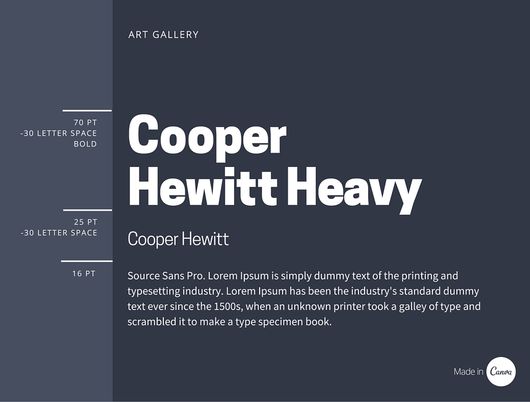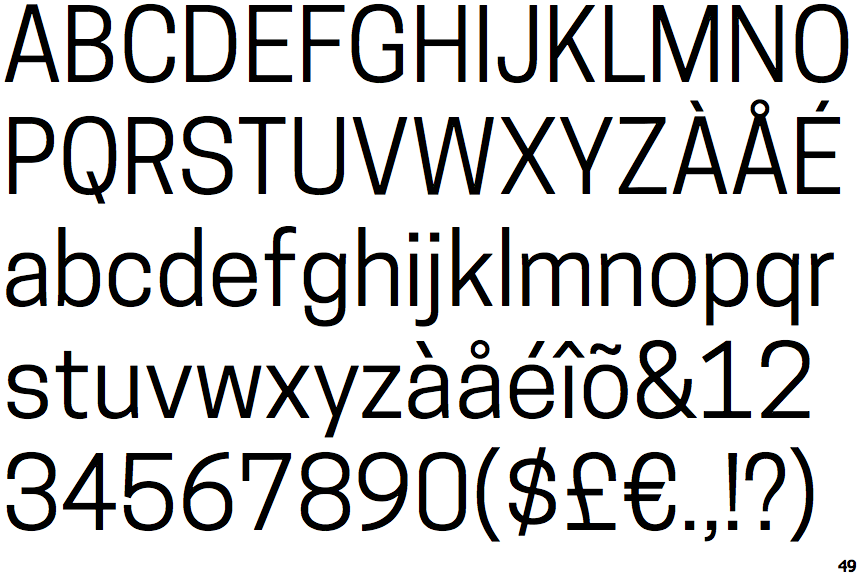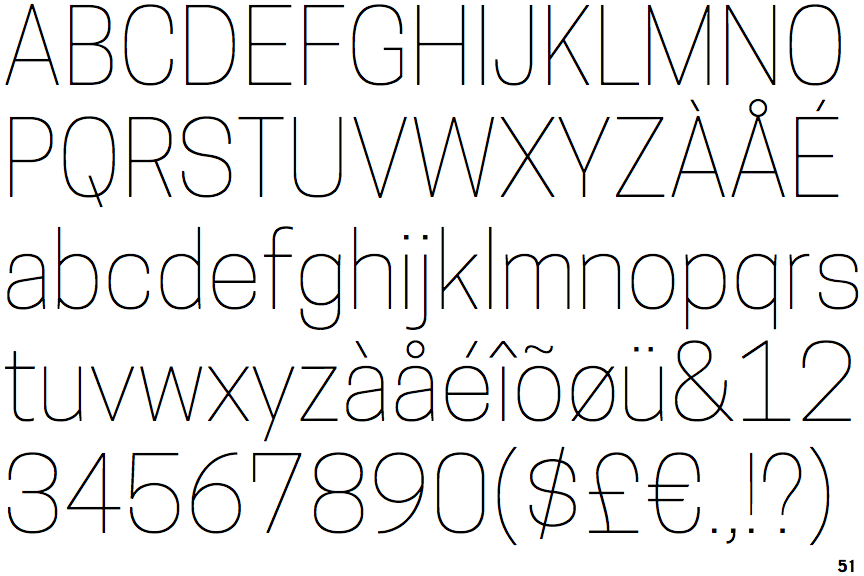
Font is available in all formats and is applicable for website, adobe photoshop and any other editor. The design was based off the condensed cut of jenkins’ galaxie polaris typeface, but was completely redrawn from scratch.
The cooper hewitt font should be used in uppercase as a contrasting subheading or chapter marker.
Cooper hewitt font adobe. Download font cooper hewitt by village type and design llc. All fonts here are named cooper hewitt, and are differentiated only by font weight / variant property. You're free to use it with your adobe fonts account just as you would any other font in the adobe fonts library.
Contact@adobe.com 2313 views, 234 downloads. The new typeface, cooper hewitt, is a contemporary sans serif, with characters composed of. He named this typeface after his name.
“developing this typeface specifically for cooper hewitt has been enormously gratifying,” said jenkins. The steps are outlined below: This font style is designed by cooper hewitt who has also designed many of the font styles that are really popular and this font style is also one of them.
Cooper std black font viewed 14368 times and downloaded 7555 times. Chank diesel has been creating original typefaces since 1995. Initially commissioned by pentagram to evolve his polaris condensed typeface, chester jenkins created a new digital form to support the newly transformed museum.
Initially commissioned by pentagram to evolve his polaris condensed typeface, chester jenkins created a new digital form to support the newly transformed museum. The cooper hewitt font has been downloaded 42,079 times. Adobe hide show add to favorite download.
If you recognize the font from the samples posted here don't be shy and help a fellow designer. On my old pc, i could see all the fonts. It was commissioned by pentagram for their rebranding of the cooper hewitt design museum.
That's only one of the nicknames of leo kobreen, and was assigned to him because of a considerable facial. A solution would be to define the font variants as own families and name them cooper hewitt book, cooper hewitt light etc. Download the cooper hewitt font by cooper hewitt.
Download cooper hewitt font family · free for commercial use · the new typeface, cooper hewitt, is a contemporary sans serif, with characters composed of modified. Scuffling and fighting almost has ceased since kerensky came to work. On the old pc i created a.psd project in which i used different fonts from cooper hewitt family.